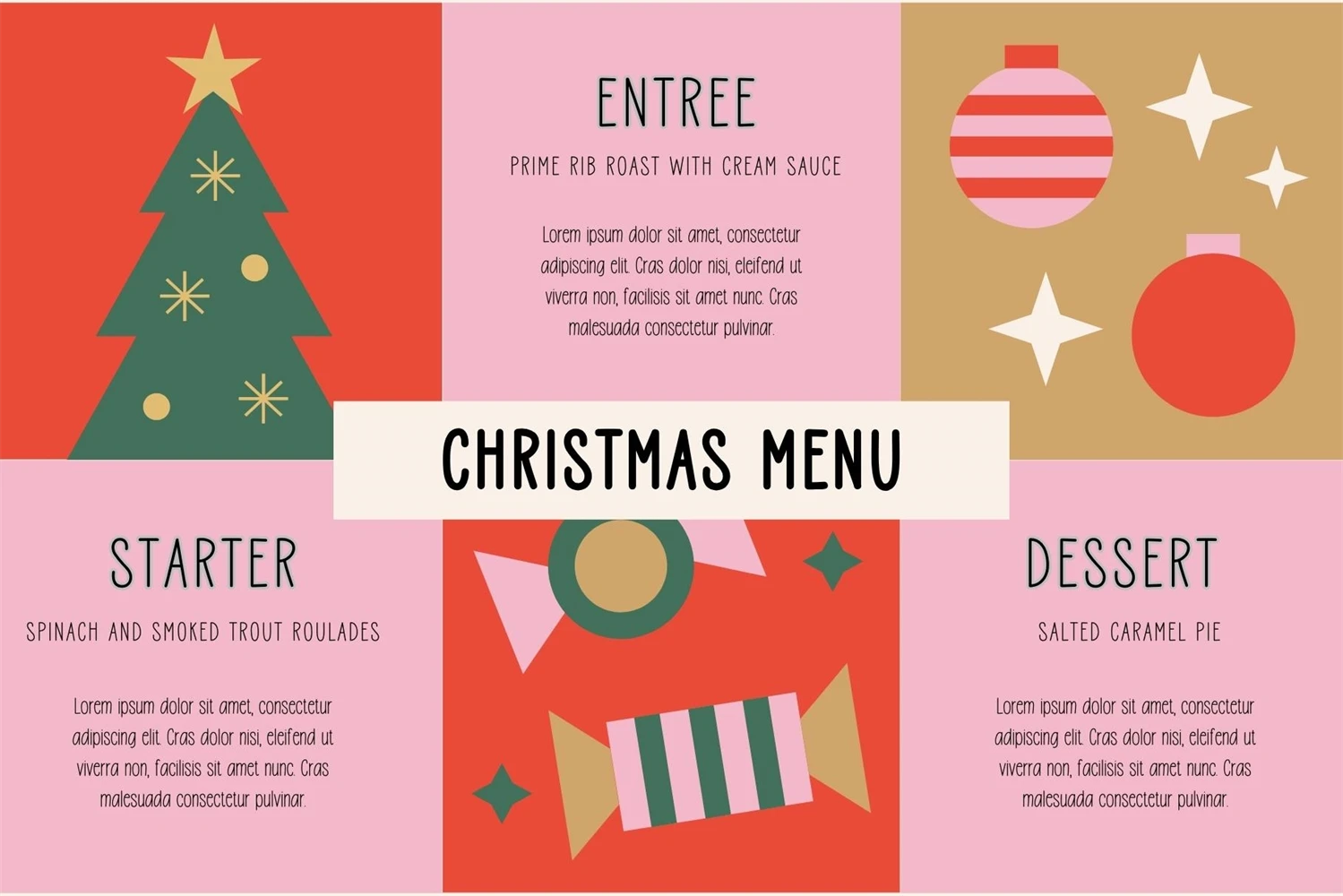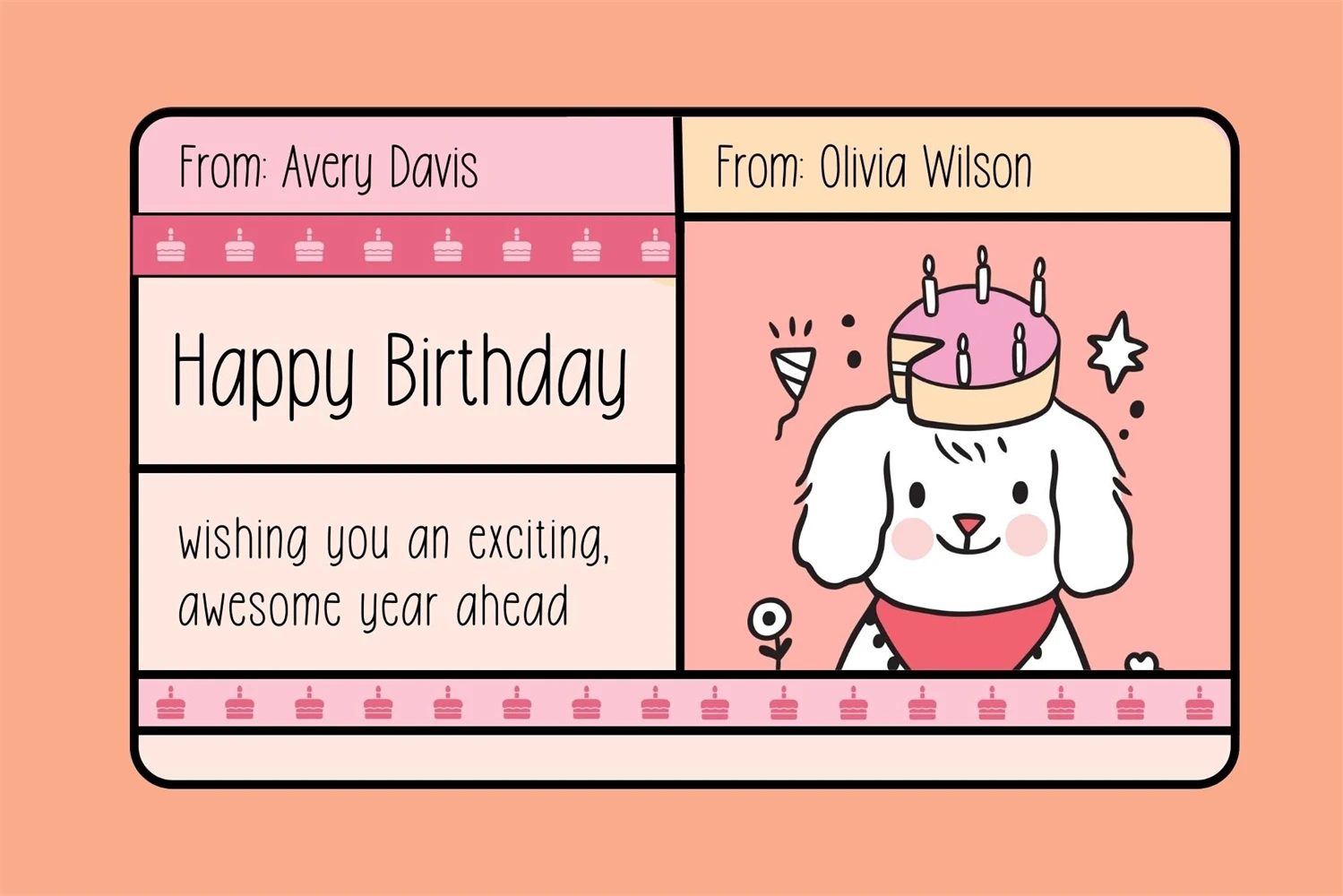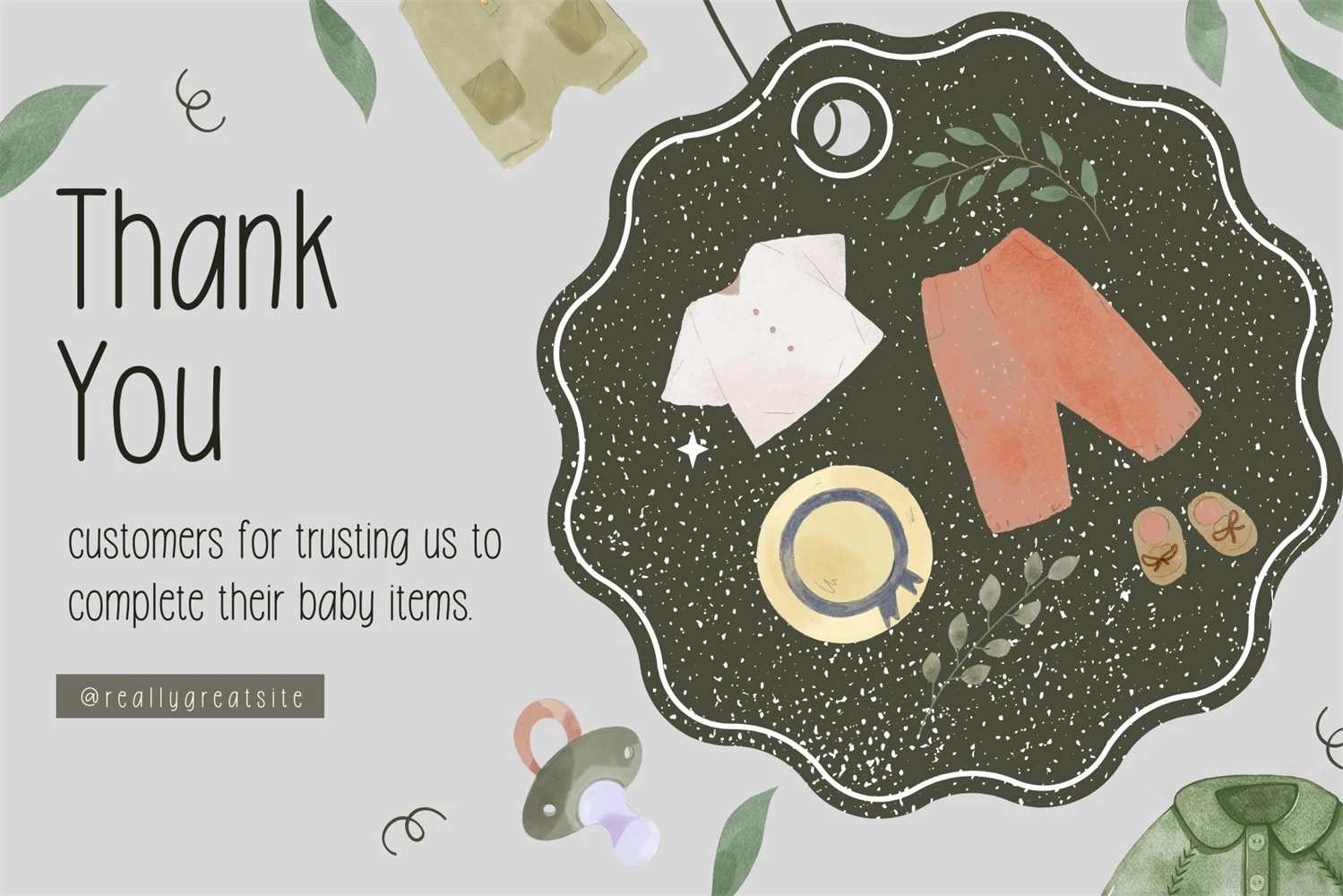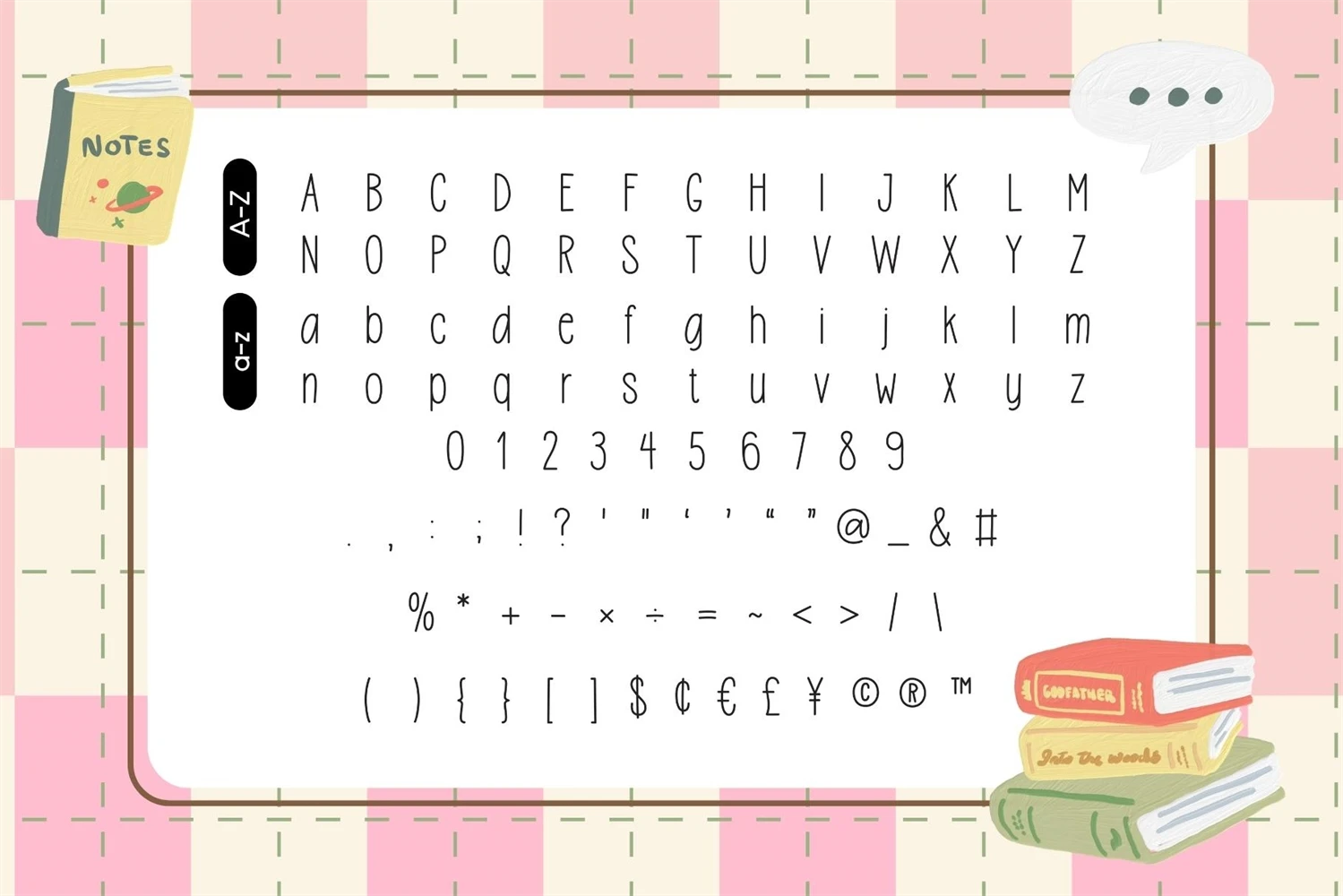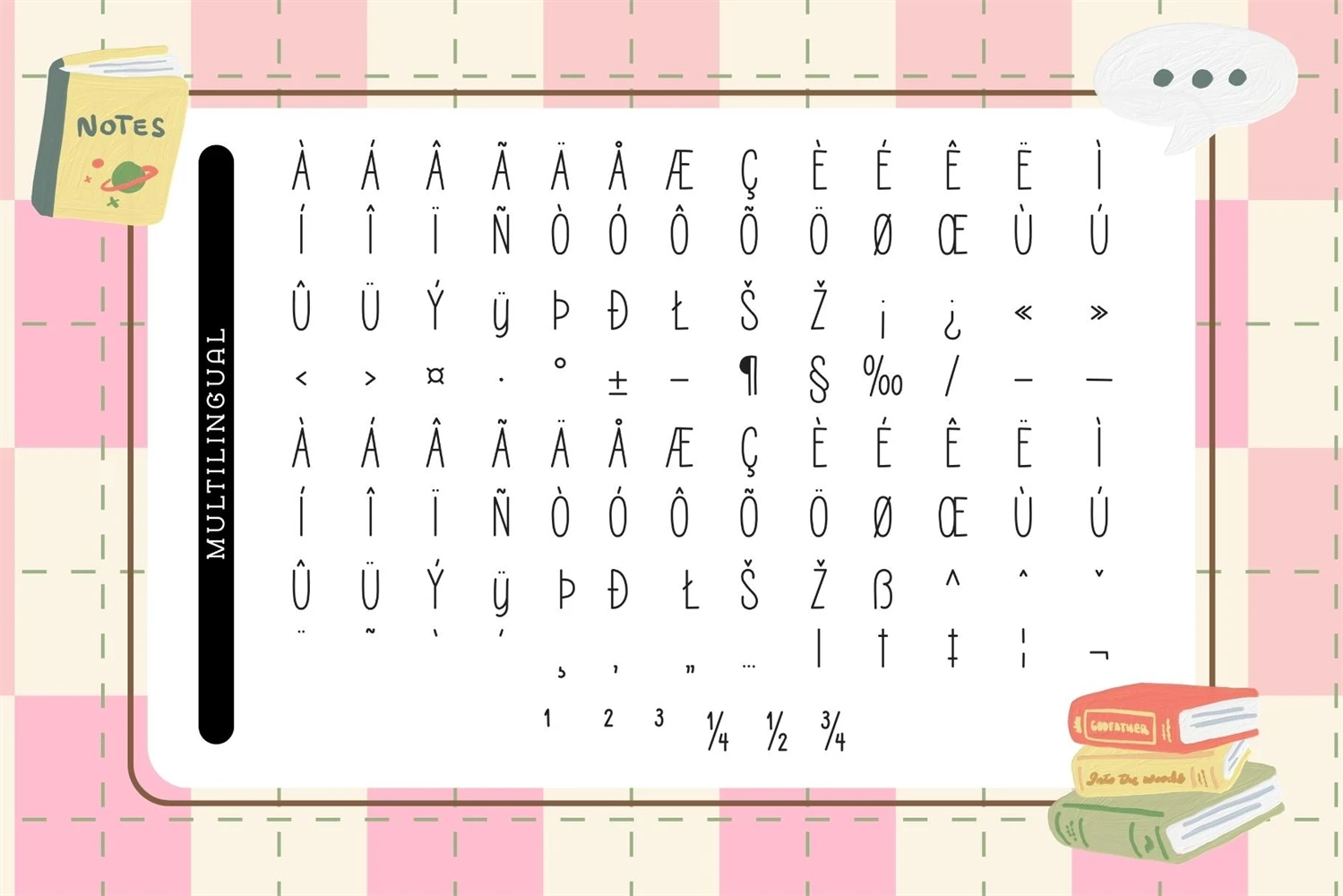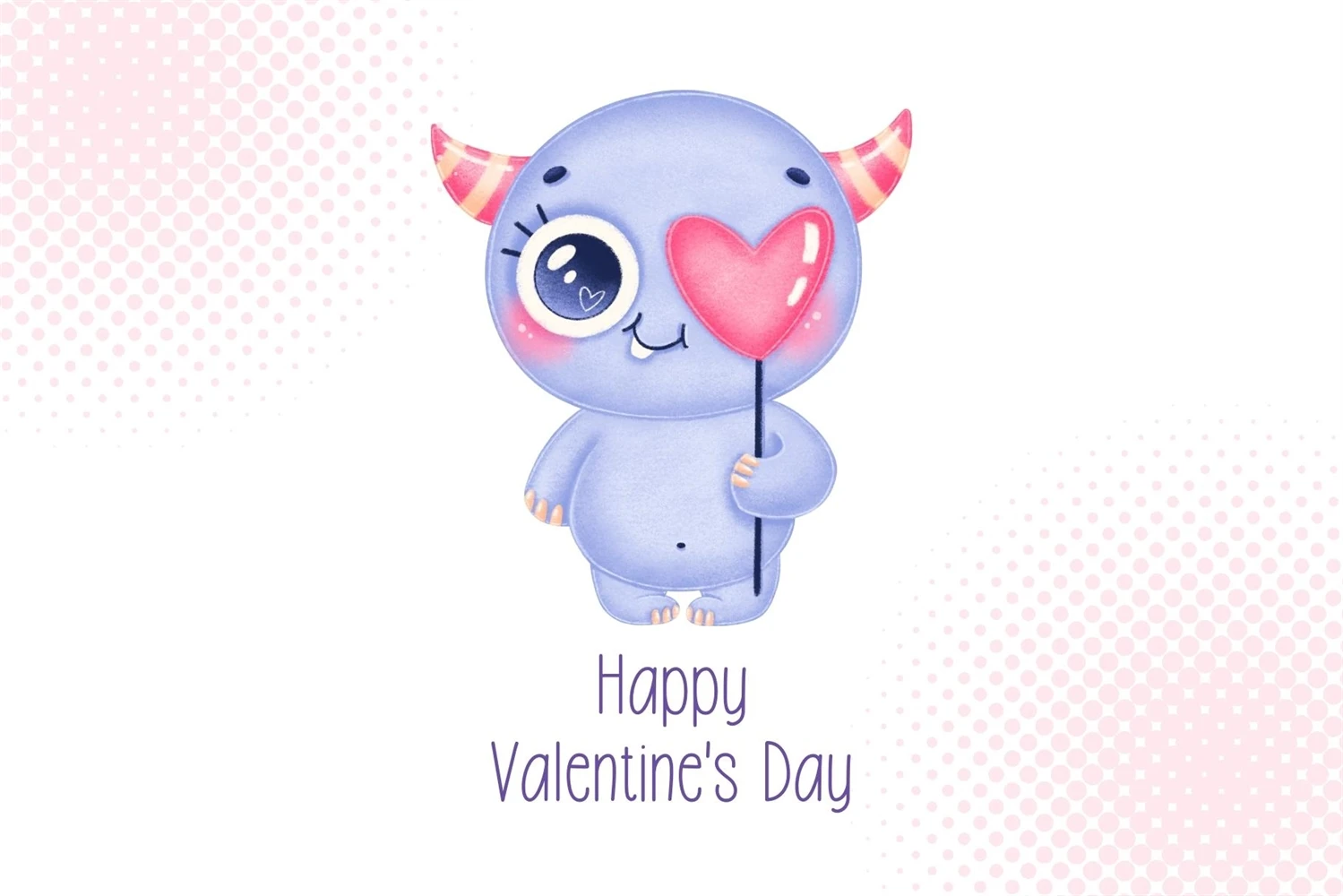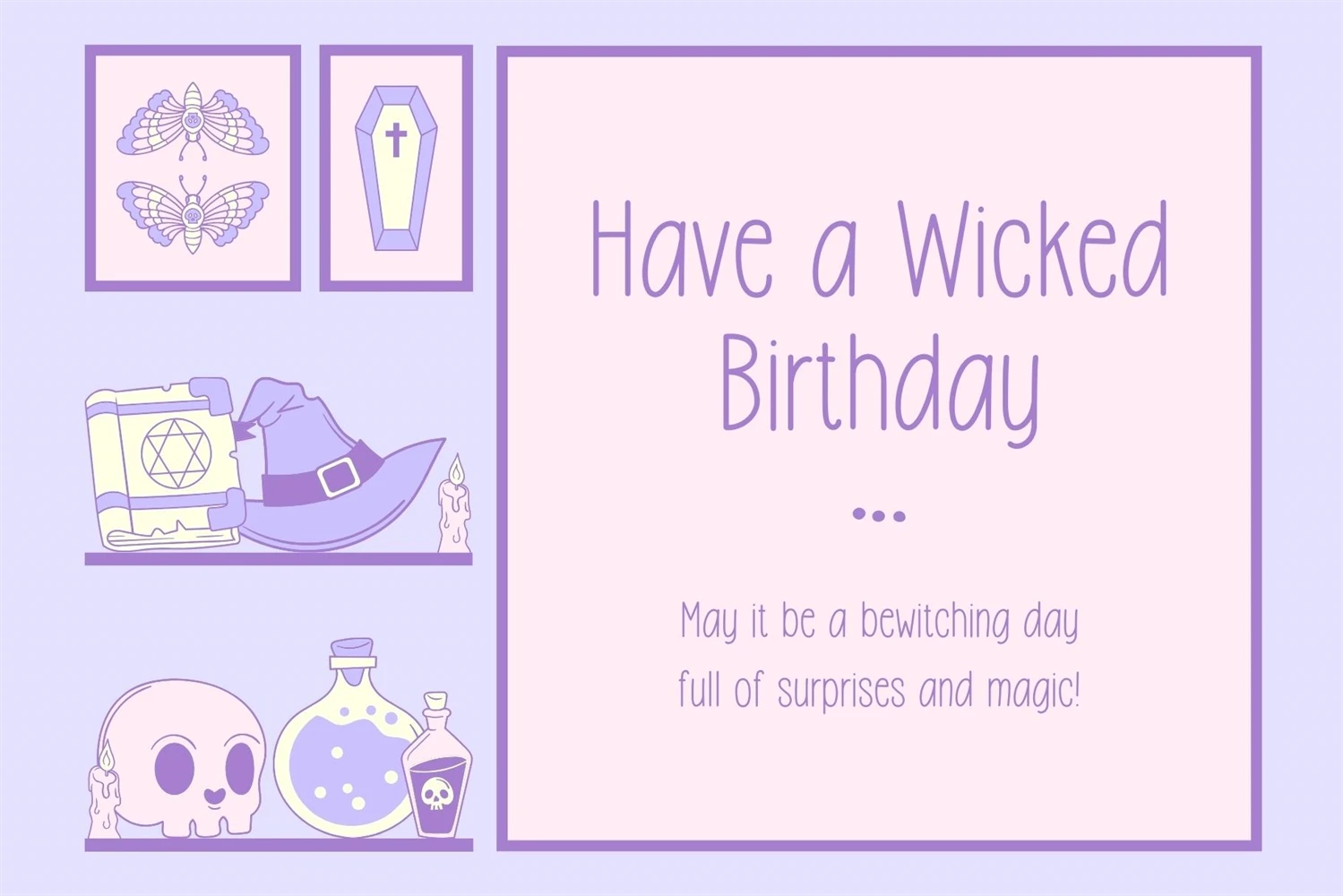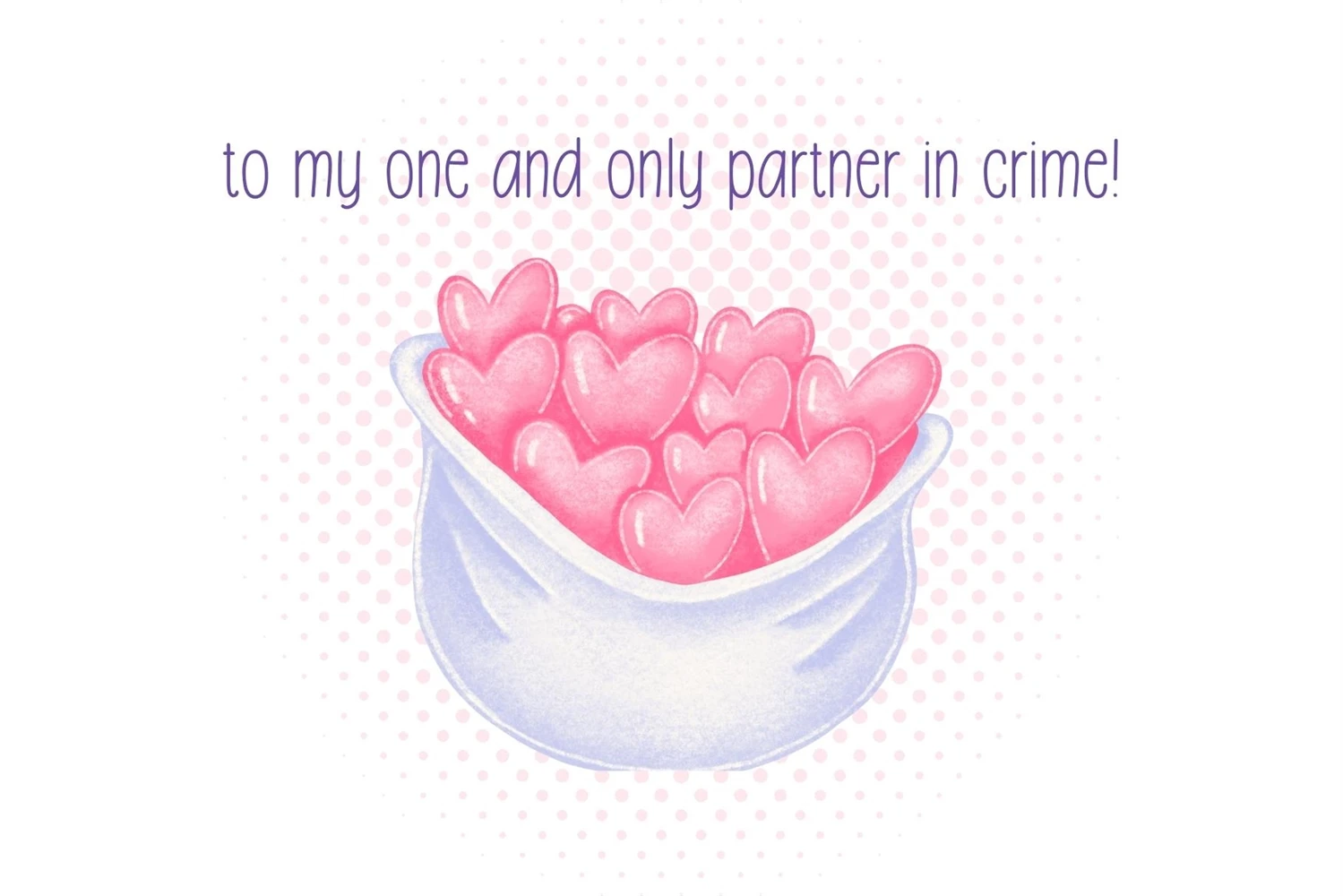
Fox Journey is your versatile companion, ready to enhance a wide range of projects. Whether youre working on blog posts, branding materials, advertisements, invitations, greeting cards, planners, photo albums, decorations, or anything else your creative heart desires, this font has you covered. Try Fox Journey today and experience the magic of handwritten simplicity, sans serif style.